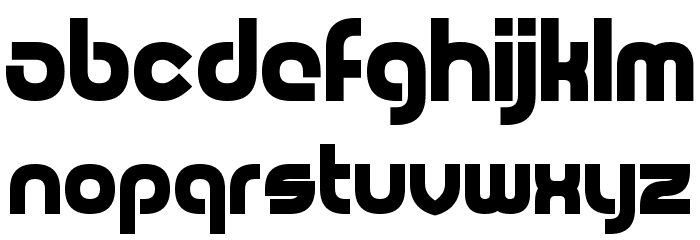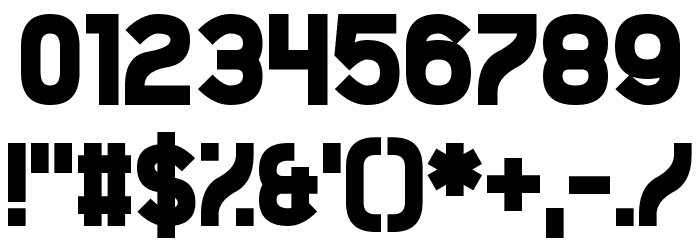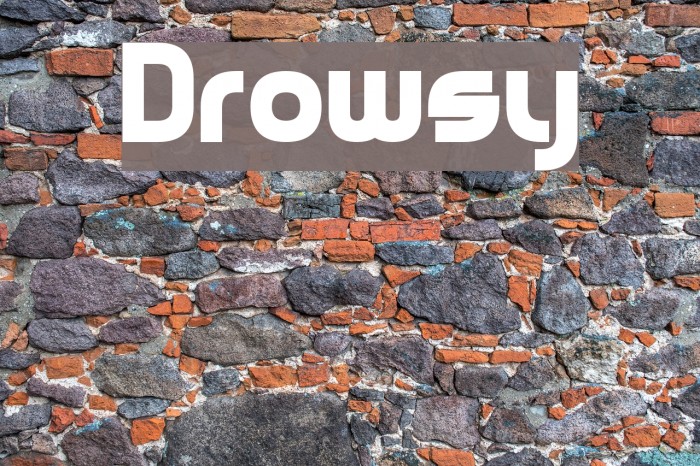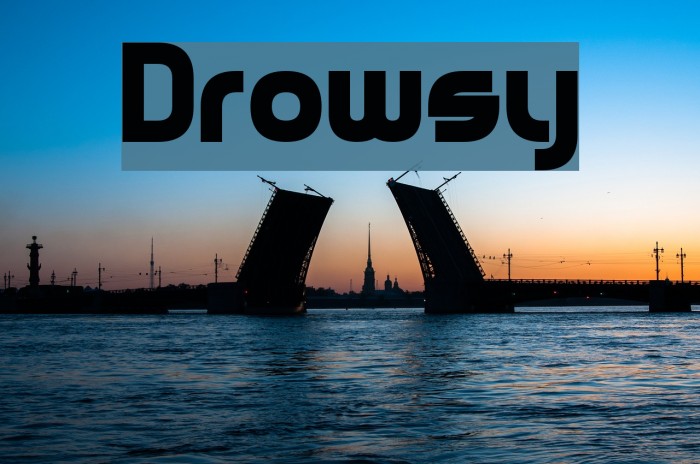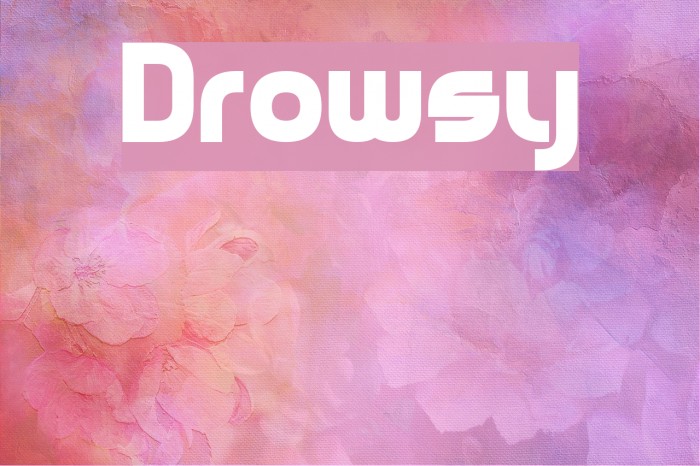
Drowsy Font
This font features a bold, geometric design with rounded edges, creating a modern and approachable appearance. The characters are uniformly thick, contributing to a strong visual impact. The uppercase and lowercase letters maintain a consistent style, with a slight emphasis on curves and circular forms. The numerals and special characters follow the same design principles, ensuring a cohesive look across all glyphs. The overall style is clean and contemporary, making it suitable for various applications that require a bold statement.
A bold, geometric font with rounded edges and a modern, cohesive style.
- Proposed Projects: Ideal for branding, headlines, posters, and digital media where a strong, modern presence is desired.